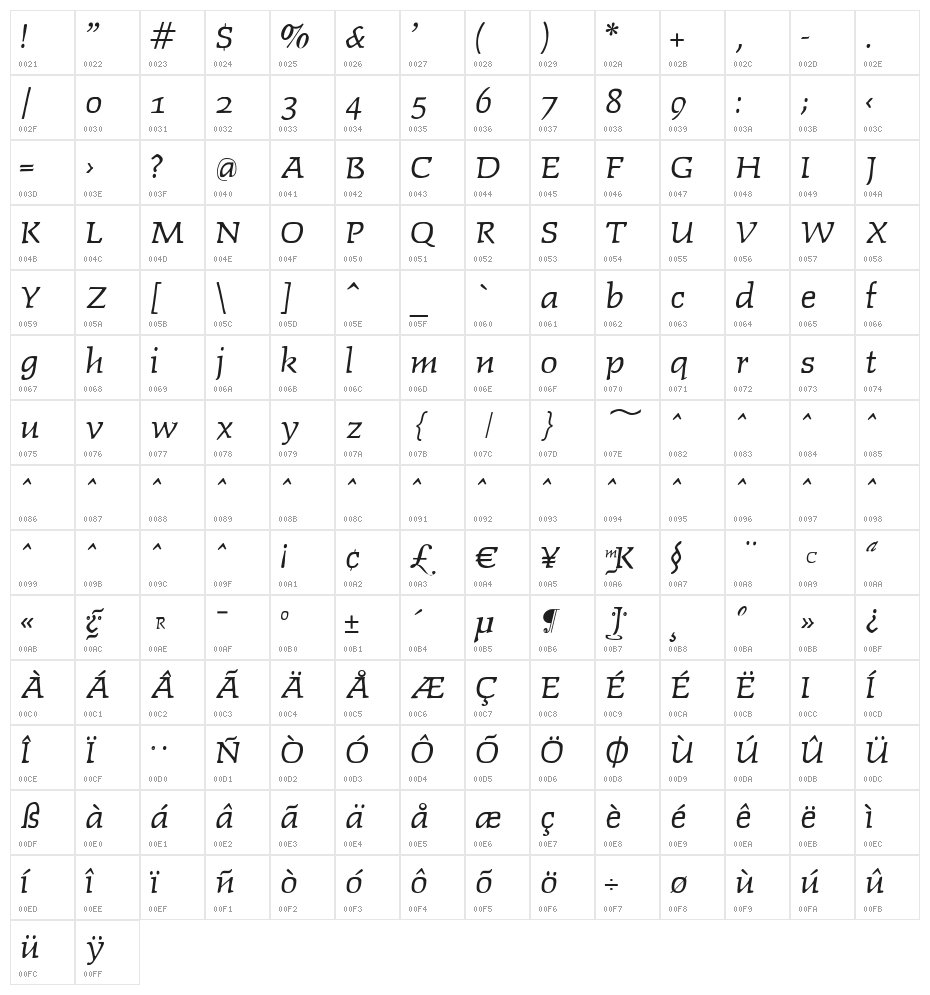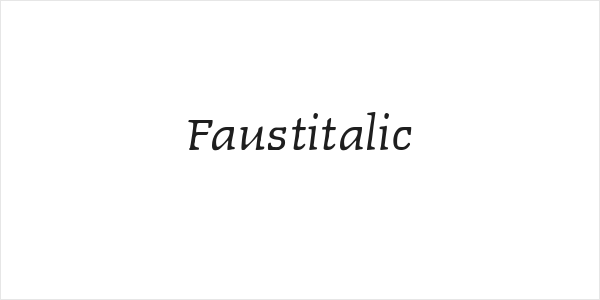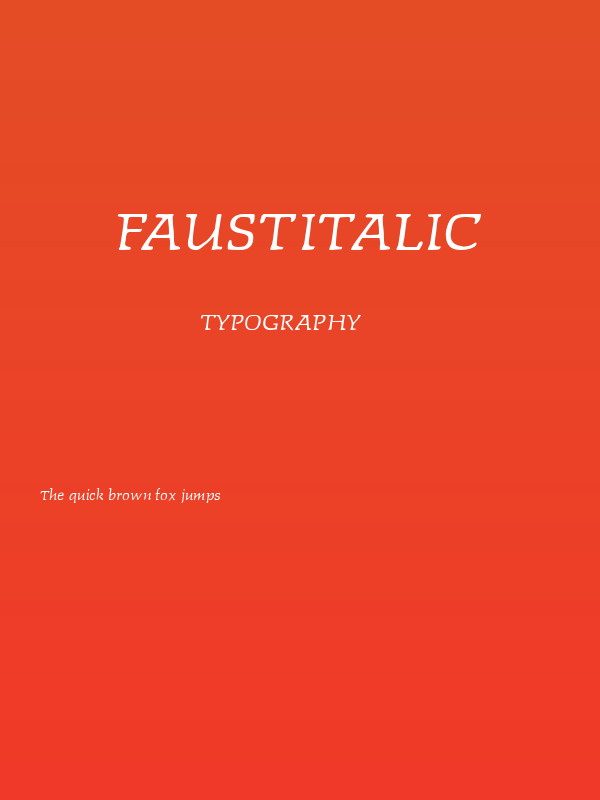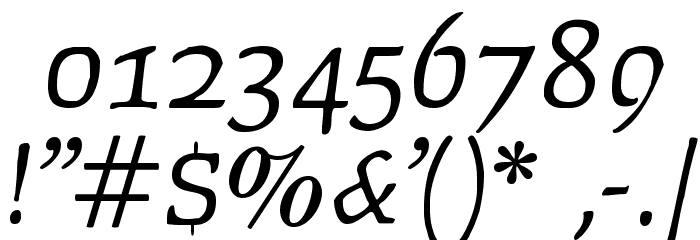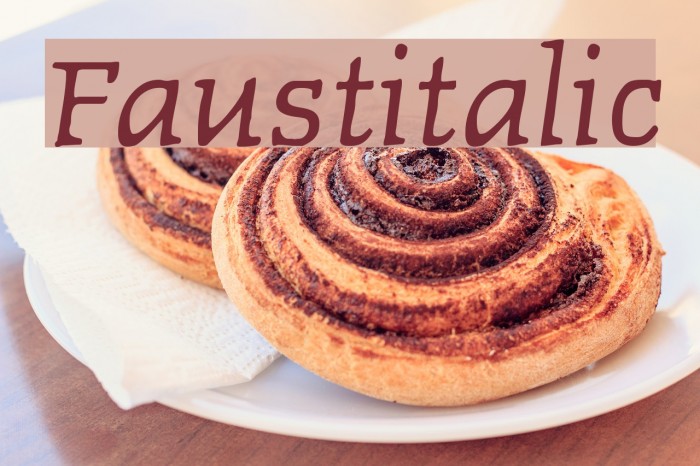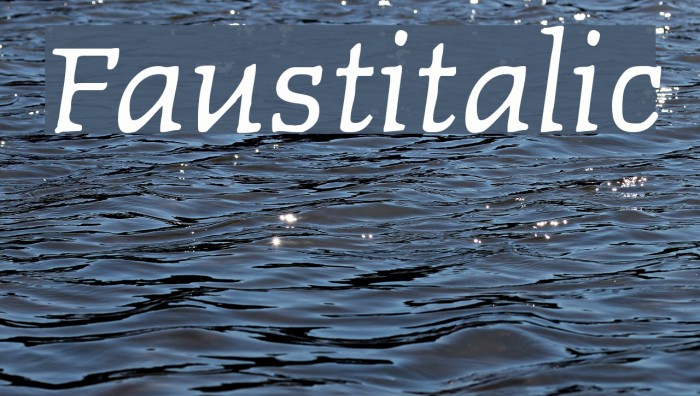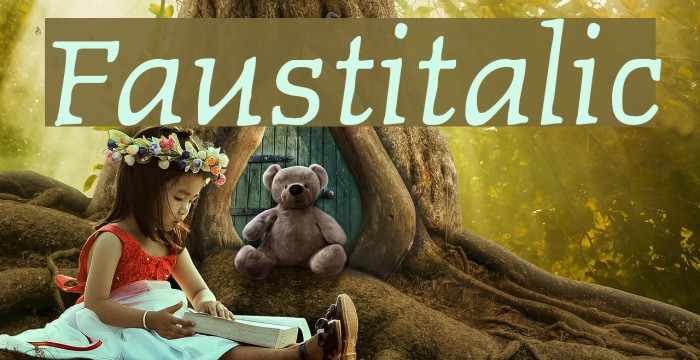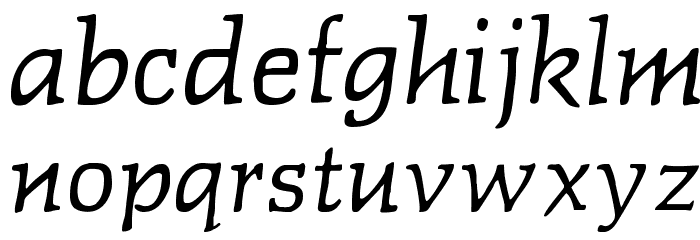
Faustitalic Font
Faustitalic Description
This font exhibits a classic and elegant style with a slight slant, giving it an italicized appearance. The characters are well-defined with a moderate contrast between thick and thin strokes, adding a touch of sophistication. The serifs are subtle yet present, contributing to its traditional feel. The overall design is balanced, making it suitable for both formal and creative applications. The numerals are clear and distinct, while the special characters maintain the font's cohesive style.
| Overall Style | Classic |
| Use Case | Headlines, Body text, Logos |
| Proposed Projects | Ideal for use in formal invitations, editorial design, book covers, and branding materials that require a touch of elegance. |